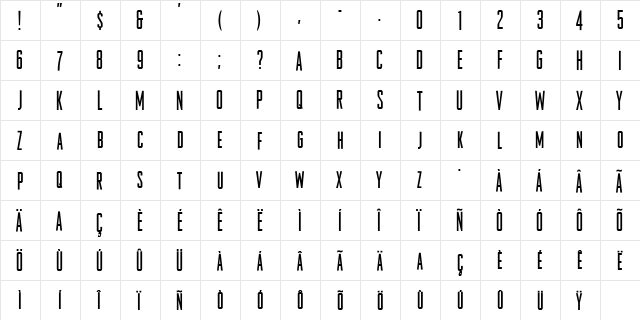
OdeonCondensedRegular Medium Font Preview
OdeonCondensedRegular Medium
Design Context for OdeonCondensedRegular Typeface
OdeonCondensedRegular is a composed and adaptable typeface that performs quietly and consistently across a wide range of design contexts. Its narrow stance lets it pack a punch even in space-constrained designs.